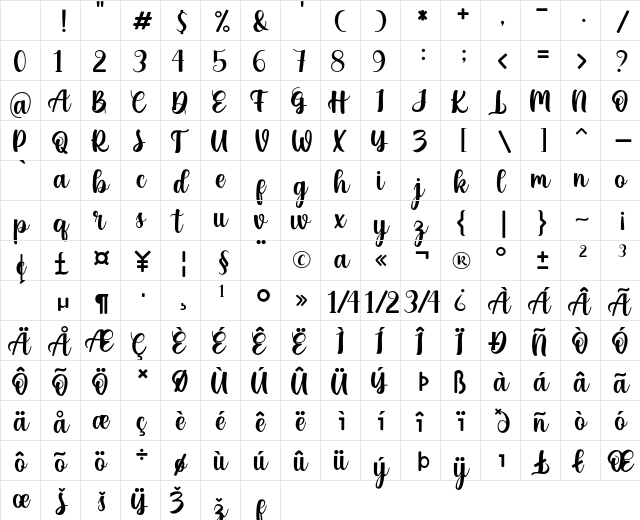
bluesfather is a composed and adaptable typeface that performs quietly and consistently across a wide range of design contexts.
Pro Tip: Use bluesfather in both headline and body roles to test its range before committing to a single application.